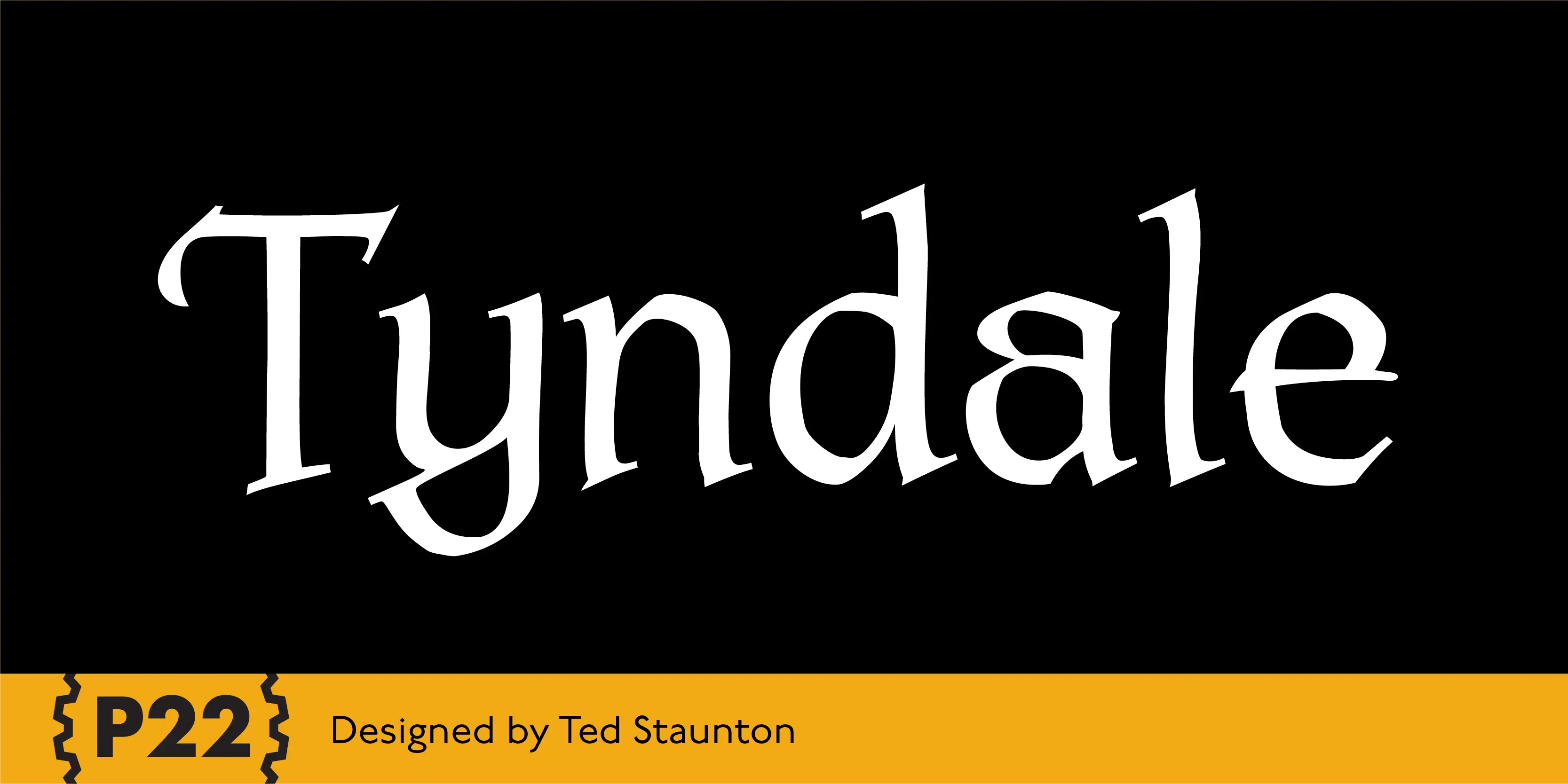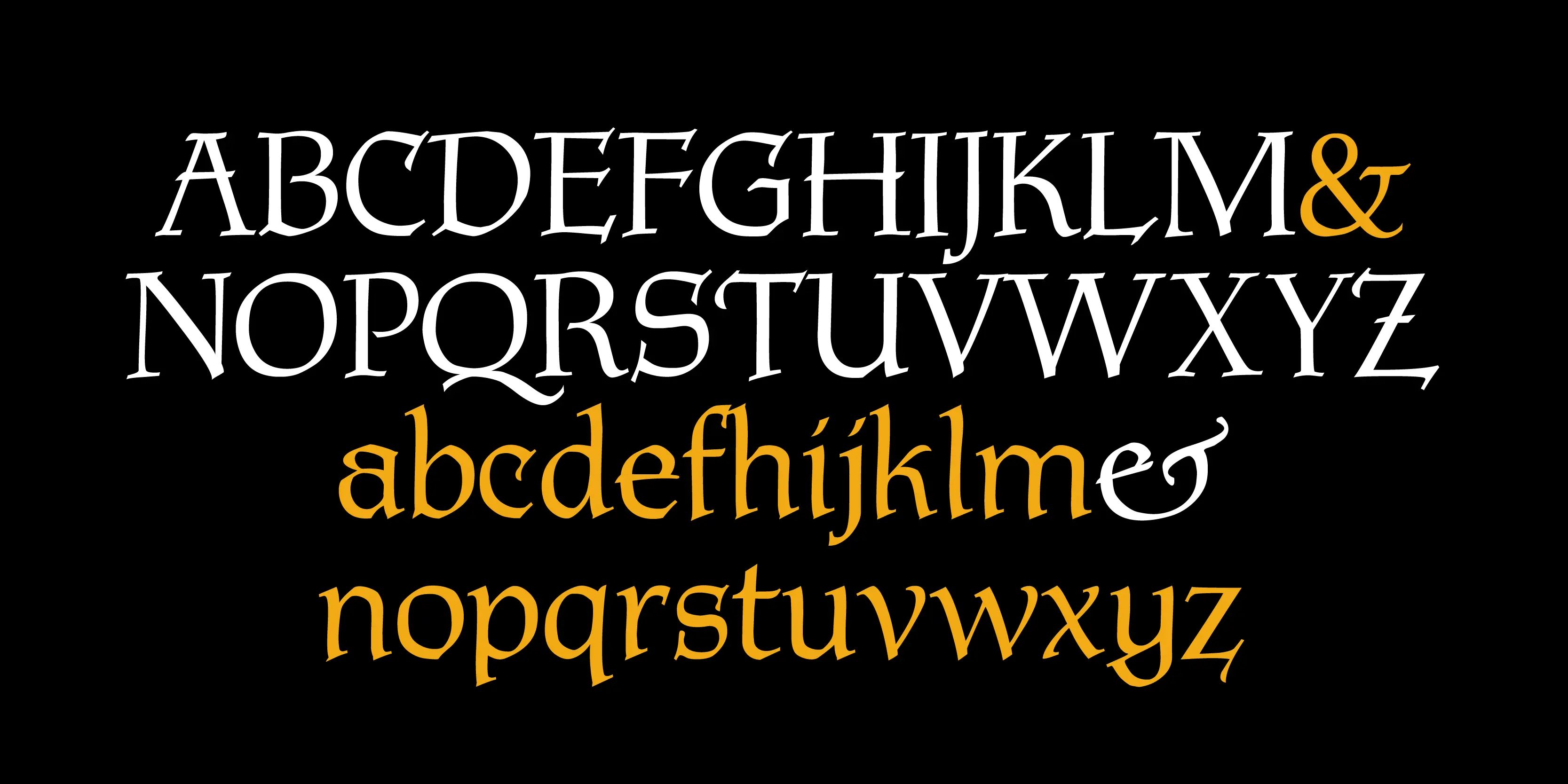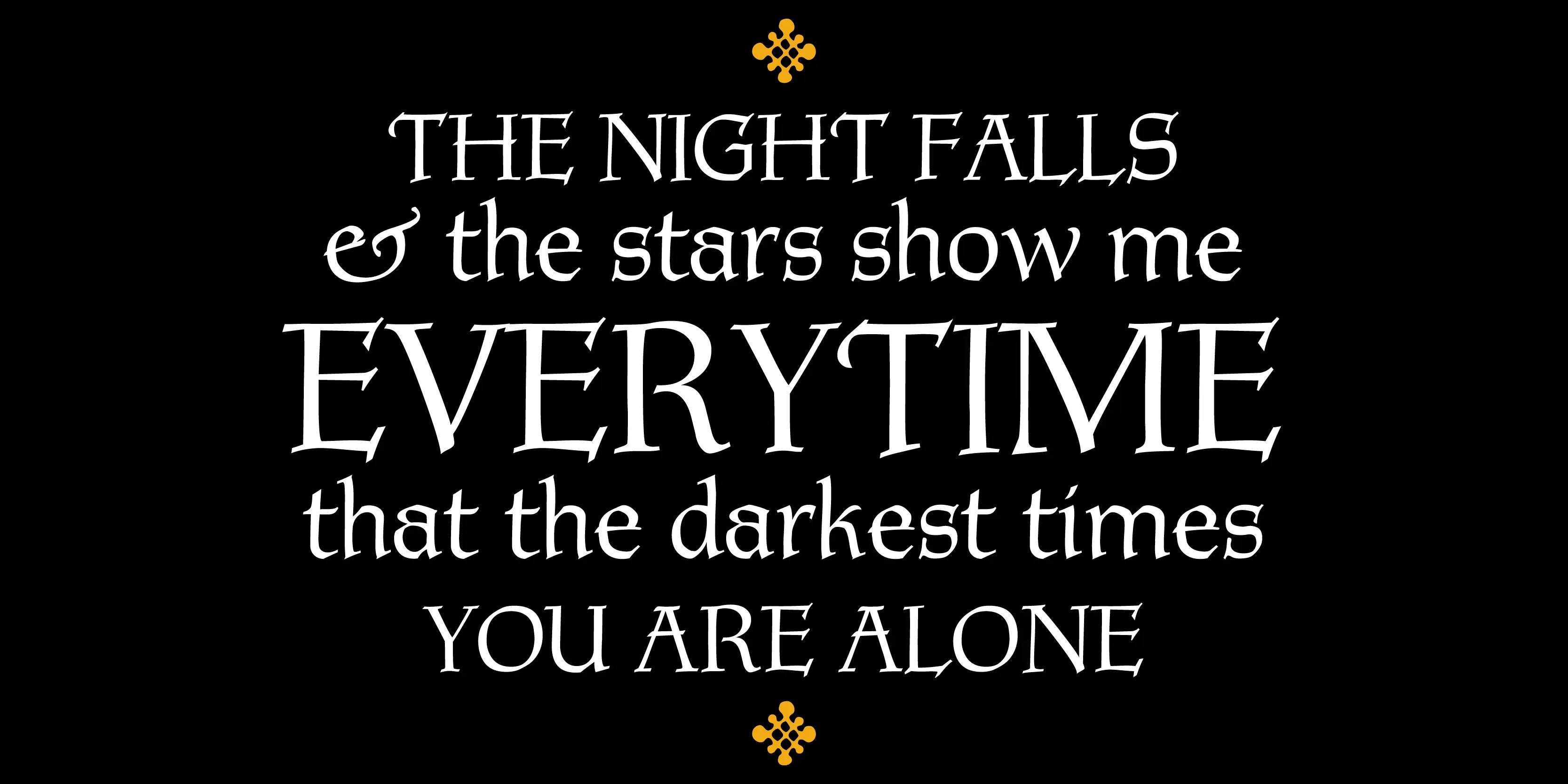
Tyndale Font
Tyndale
Tyndale is a Roman-Gothic hybrid with an antique feel, based on pen-drawn forms. The stylishness of individual letters makes it appealing even for large-scale signage, where evoking heritage is important.
• Old Style Numerals
• Ornaments
• Swashes
Ornaments
Swashes